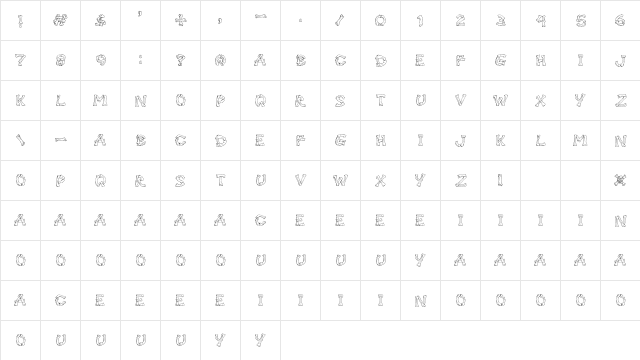
Bone Brigade Regular Font Preview
Bone Brigade Regular
Bone Brigade Regular Font Details
| Designer | Ben Dunkle |
Design Context for Bone Brigade Typeface
Bone Brigade is a composed and adaptable typeface that performs quietly and consistently across a wide range of design contexts.